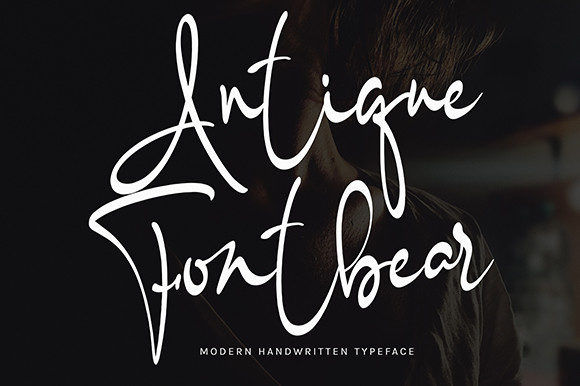
Discover the Elegance of Antique Fontbear Font: A Fashionable Script Font for Your Creative Projects
Are you looking for a font that exudes romance, elegance, and sophistication? Look no further than the Antique Fontbear Font. This stylish script font is perfect for creative projects that require lovely, romantic typography. In this article, we’ll explore the features and benefits of Antique Fontbear, and how it can elevate your designs to the next level.
What is Antique Fontbear Font?
Antique Fontbear is a beautifully crafted script font that is designed to add a touch of elegance and romance to your creative projects. With its flowing lines, intricate details, and classic feel, this font is perfect for designs that require a sophisticated and stylish look.
Whether you’re working on a wedding invitation, a branding project, or a romantic get-away brochure, Antique Fontbear Font is the perfect choice. Its unique and stylish design will set your project apart from the rest and leave a lasting impression on your audience.
Benefits of Using Antique Fontbear Font
So, why choose Antique Fontbear Font for your creative projects? Here are just a few benefits of using this stylish script font:
- Elegant and Romantic: Antique Fontbear Font is designed to exude romance and elegance, making it perfect for projects that require a sophisticated look.
- Highly Versatile: This font can be used for a wide range of creative projects, from wedding invitations to branding and advertising.
- Unique and Stylish: This font has a unique and stylish design that will set your project apart from the rest.
Technical Features of Antique Fontbear Font
Inspiration for Your Creative Projects
Antique Fontbear Font is perfect for a wide range of creative projects. Here are some ideas to get you started:
- Wedding Invitations: Use Antique Fontbear Font to create beautiful and elegant wedding invitations.
- Branding and Advertising: This font is perfect for branding and advertising projects that require a sophisticated and stylish look.
- Romantic Get-Away Brochures: Use Antique Fontbear Font to create romantic get-away brochures that will leave a lasting impression on your audience.
In conclusion, Antique Fontbear Font is a fashionable and stylish script font that is perfect for creative projects that require lovely, romantic typography. With its elegant design, technical features, and ease of use, this font is a must-have for any designer or creative professional.